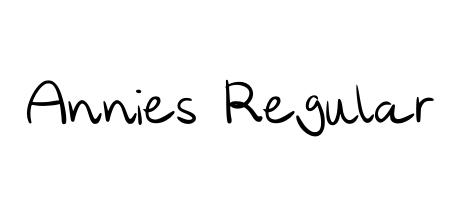
Annies
By Channah
Annies Regular: A playful, handwritten script font. Its lowercase letters are slightly rounded and connected, giving it a friendly, informal feel. The 'a' and 'g' possess a distinct, almost whimsical curl. The overall style suggests a personal touch, suitable for invitations, notes, or branding that desires a casual yet charming aesthetic.